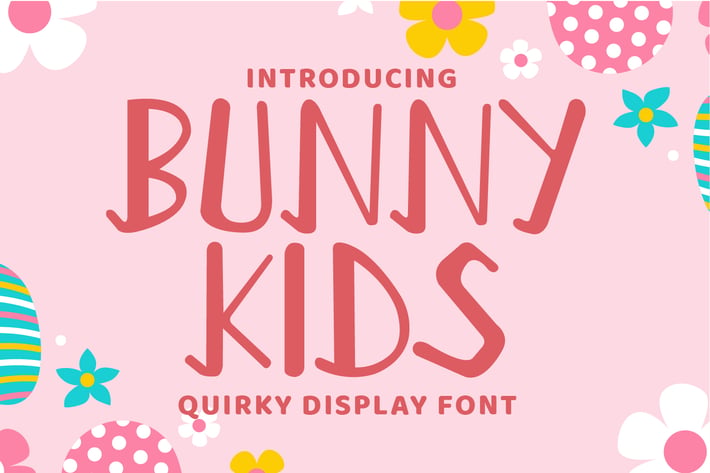
Bunny Kids - Kids Display Handwriting Font
Introducing Bunny Kids - Kids Display Handwriting Font
Bunny Kids is a cute and quirky display font. It embodies playfulness and authenticity and is the perfect choice for any children activity or school project.